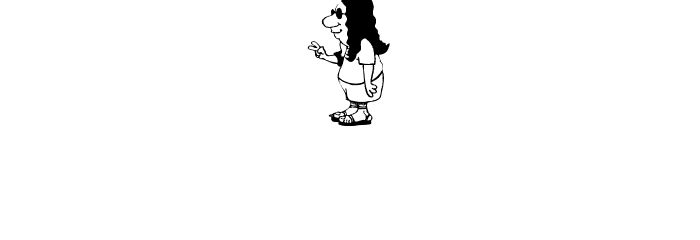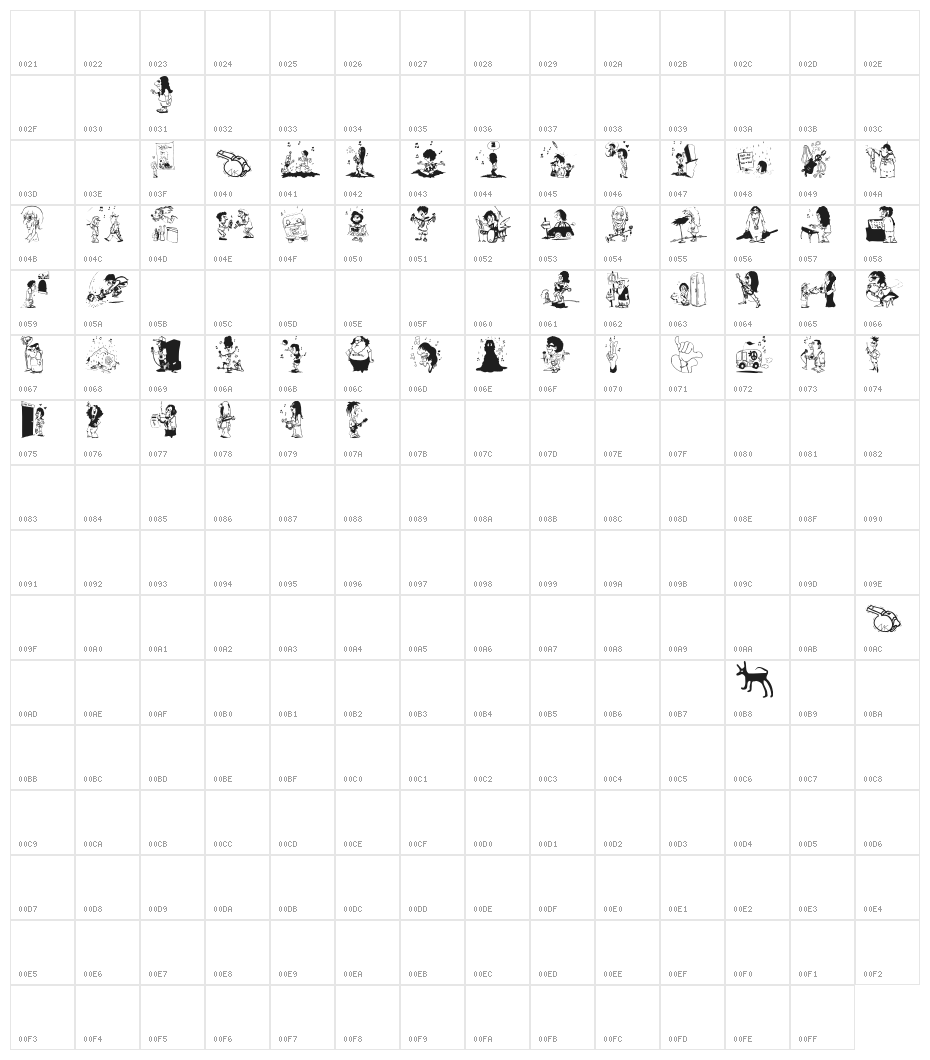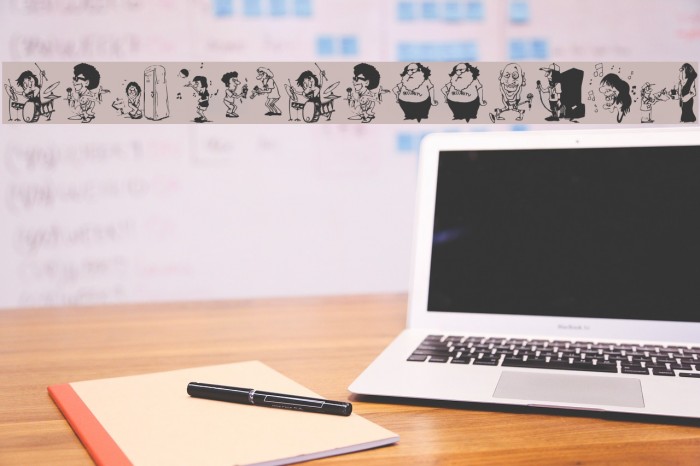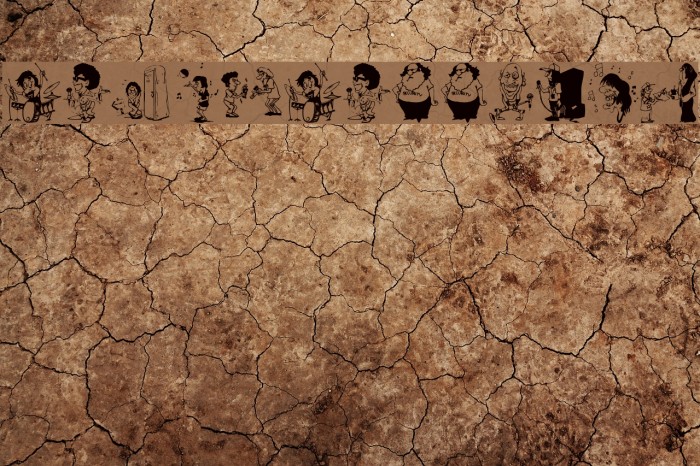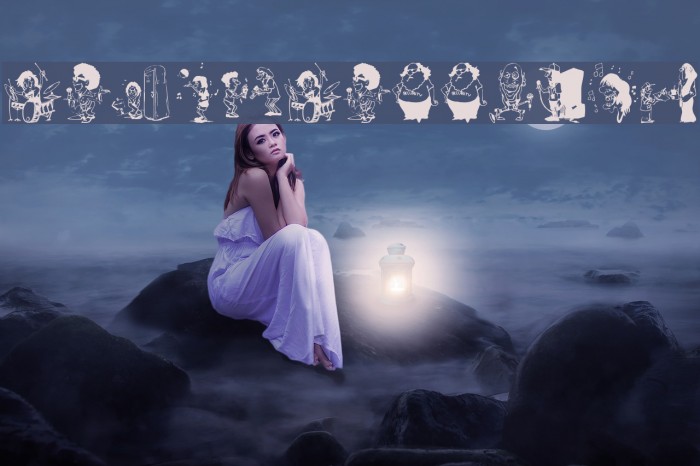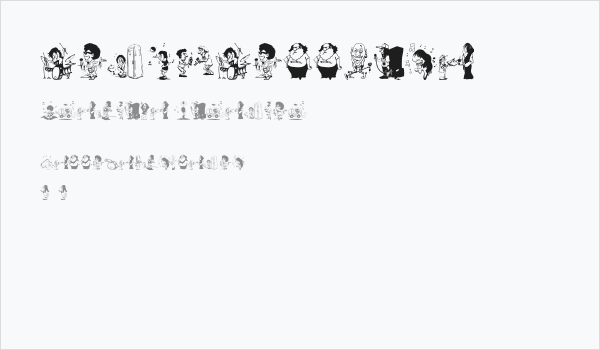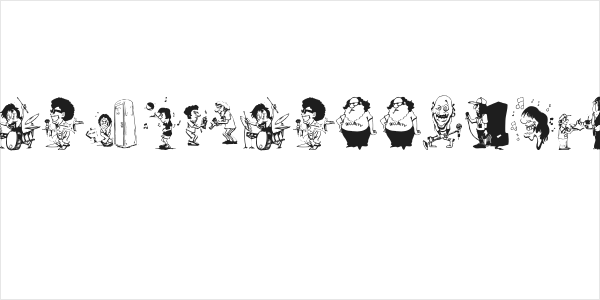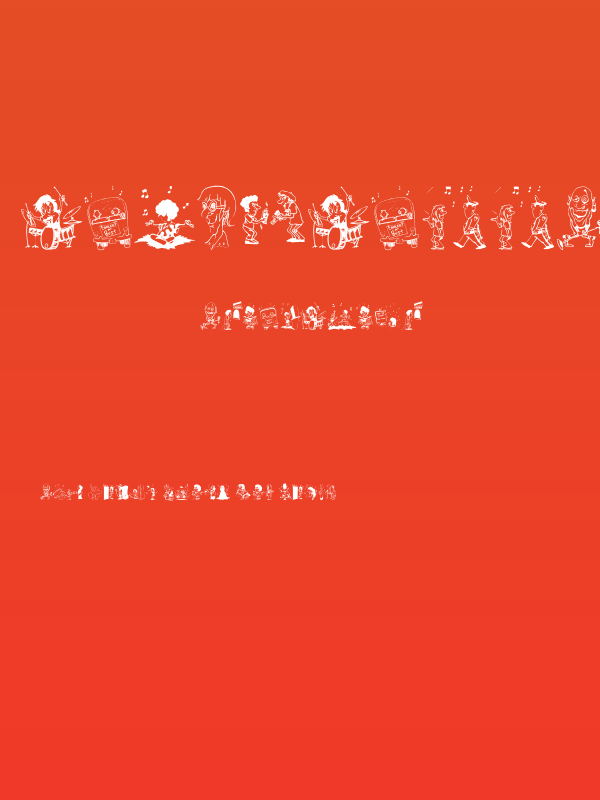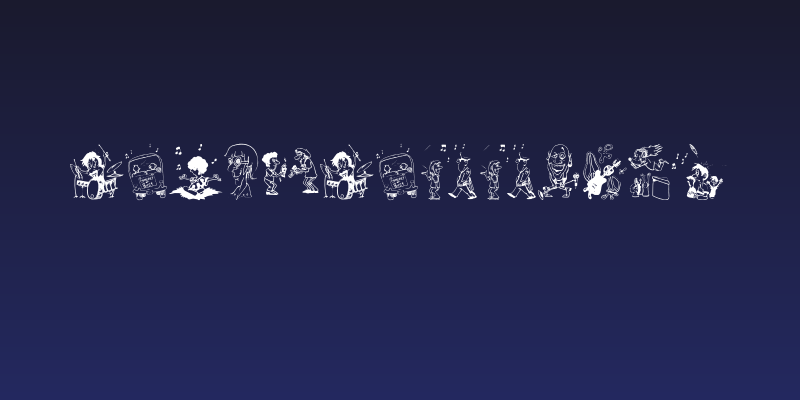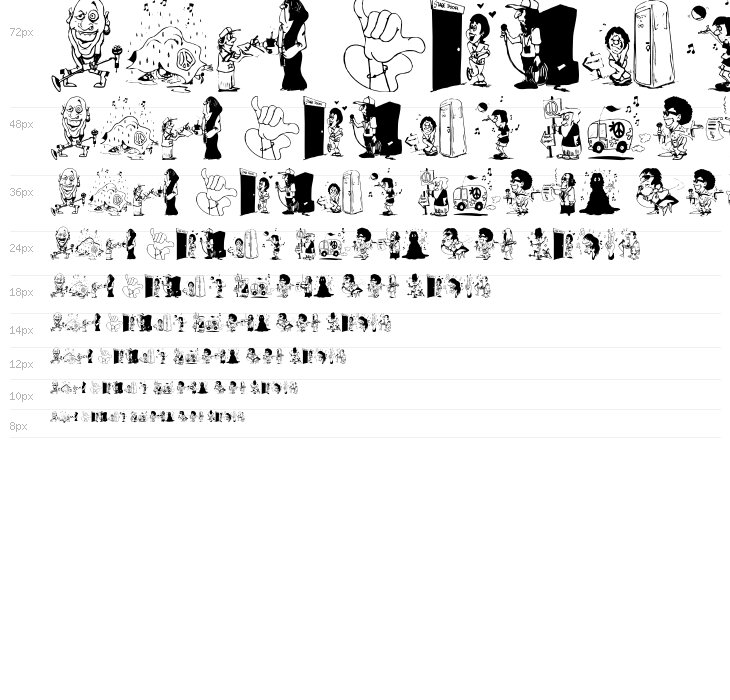
RockNRollTime Font
RockNRollTime Description
A playful, highly decorative font where each character is represented by a unique cartoon illustration of rock and roll musicians and related themes, featuring expressive poses and musical elements. The style is hand-drawn with bold outlines and varying levels of detail, giving each letter a distinct personality.
| Overall Style | Decorative, Playful, Thematic |
| Proposed Projects | Music festival posters, album covers, event invitations, themed party materials, children's music books. |